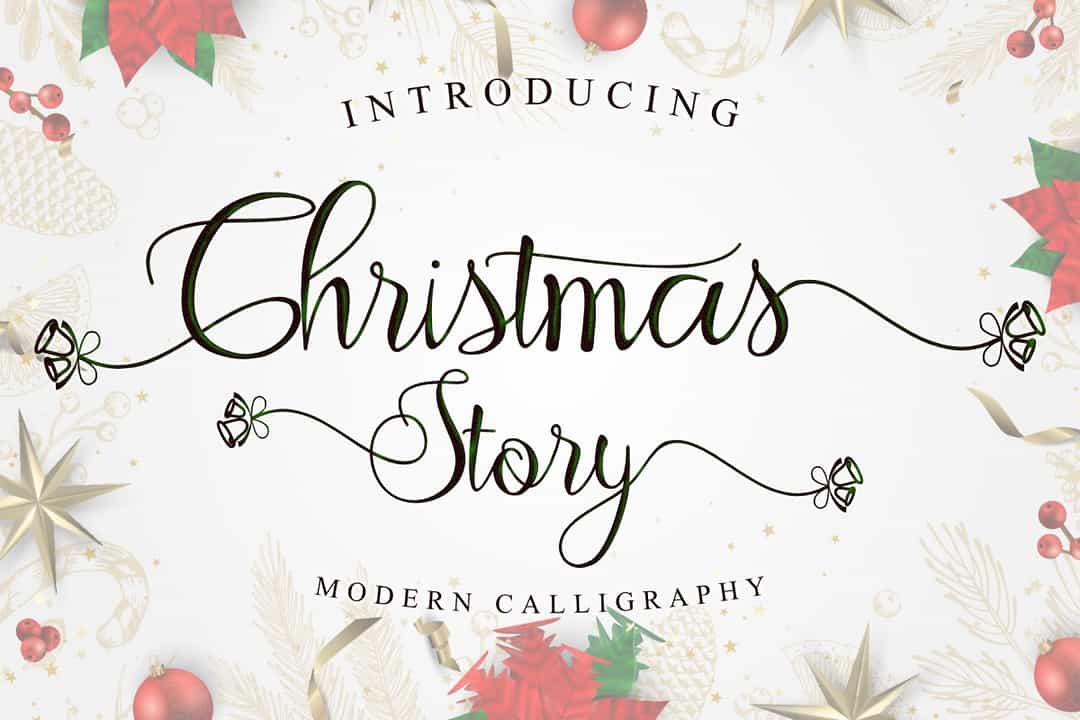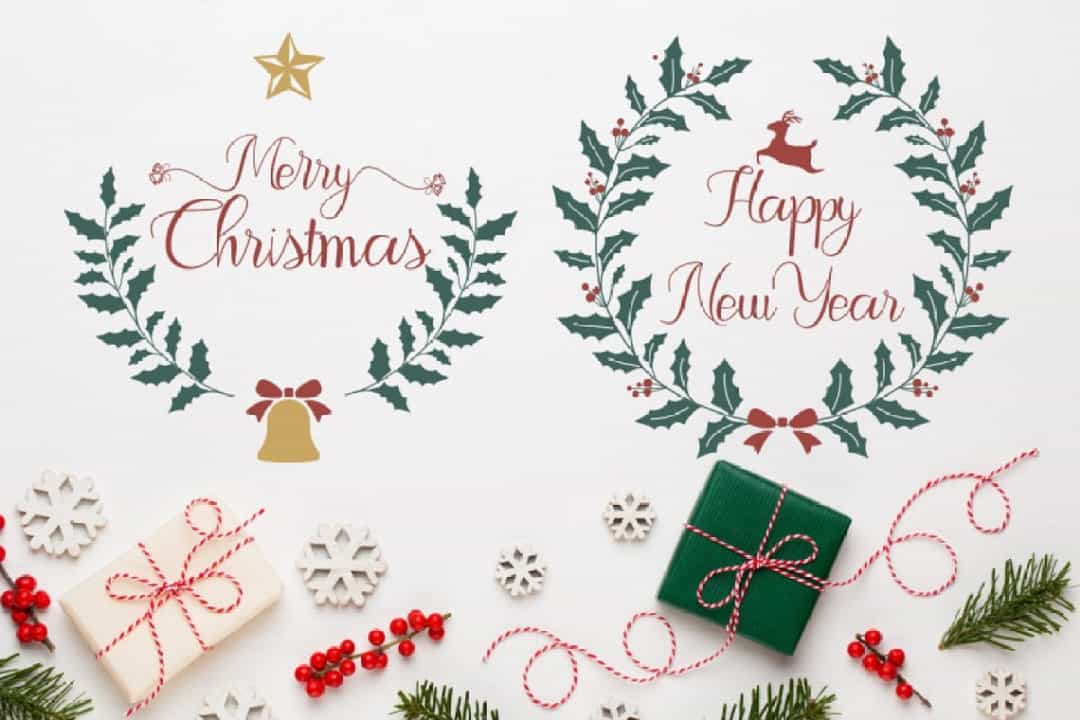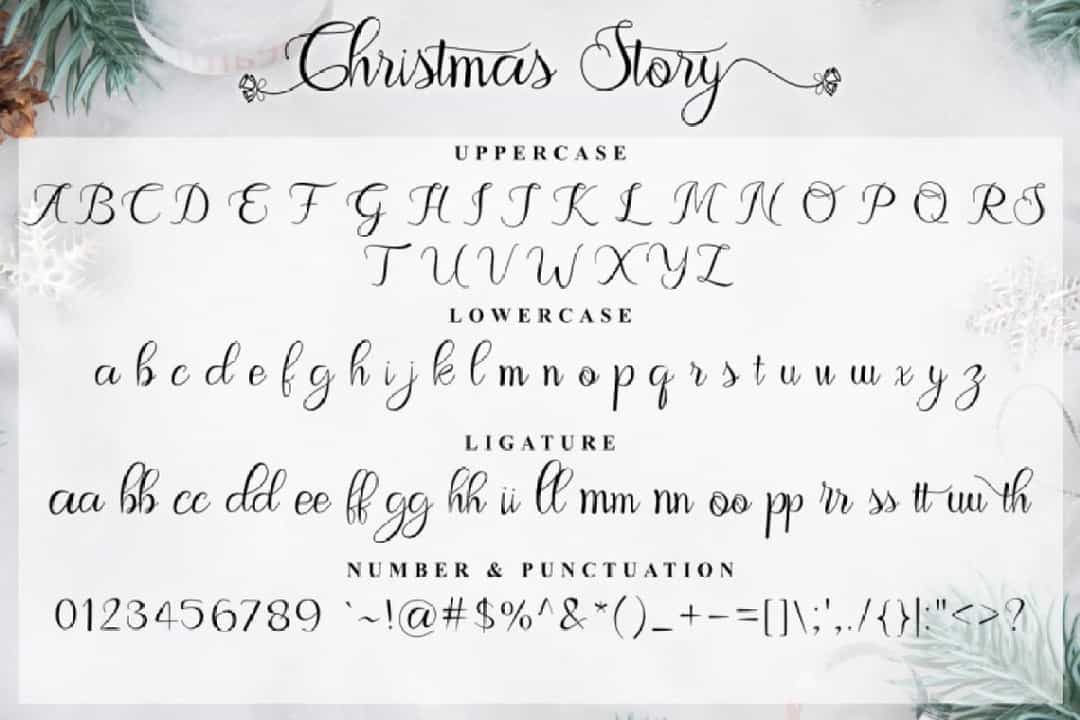
Christmas is a beautiful and quite feminine handwritten script type font with the elements of calligraphy. It features a natural style that can easily blend with any design, and that is why Christmas will be an excellent addition to your designs! Also, it has to be noted that PUA encoded font makes it easier to access Swashes and Glyphs easily!